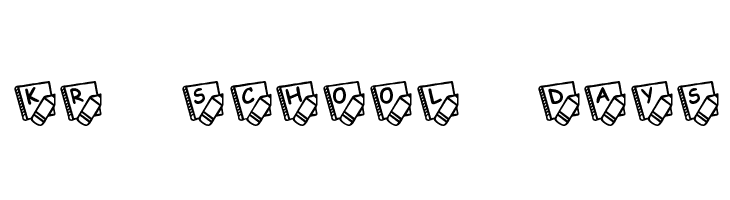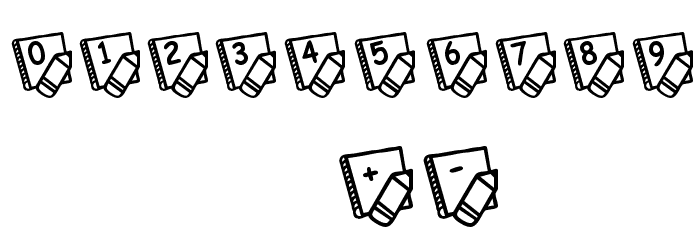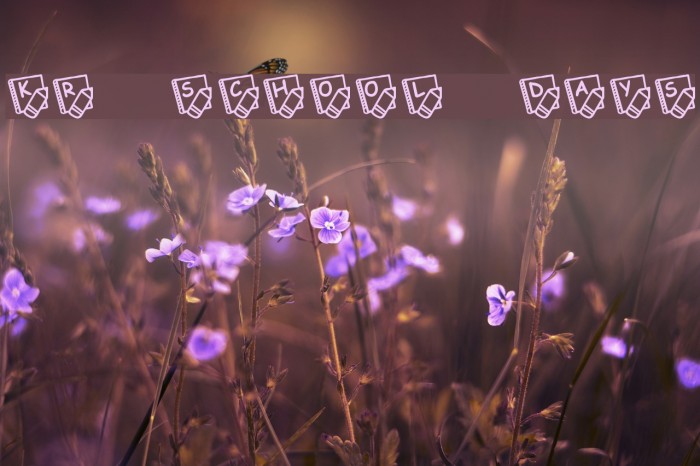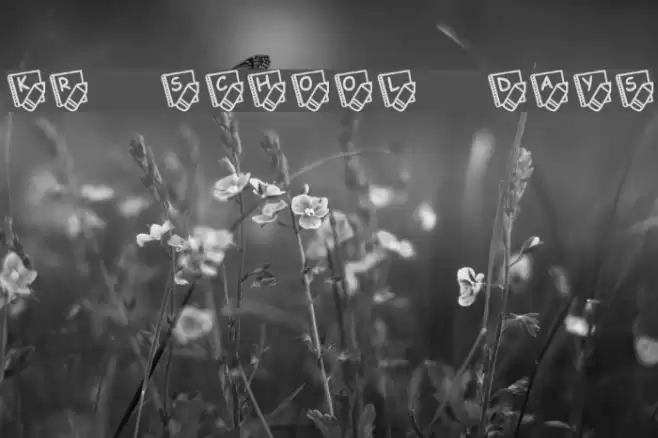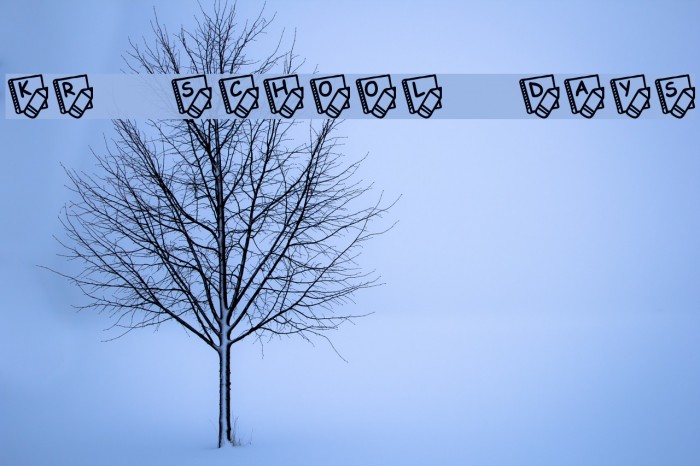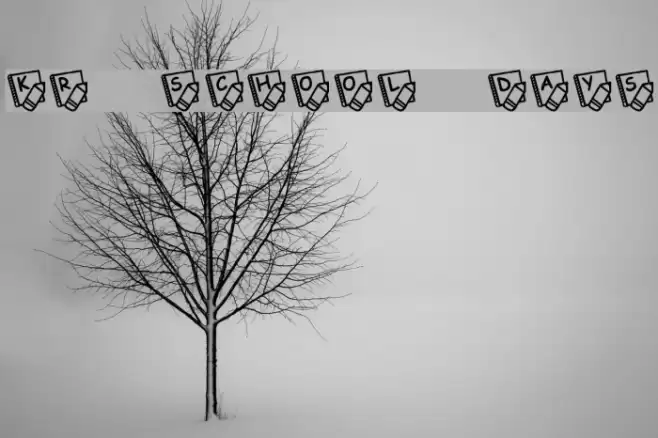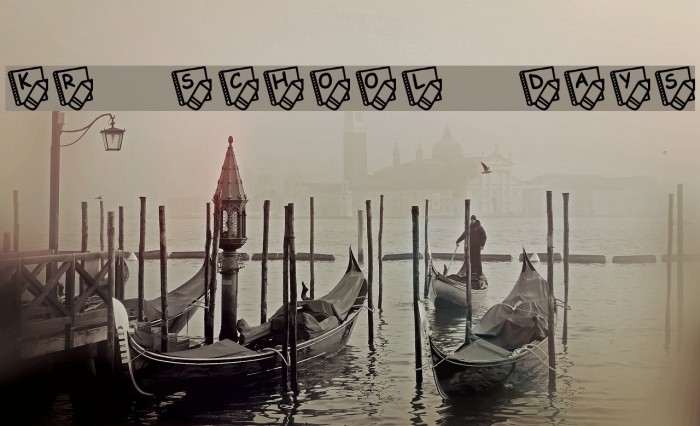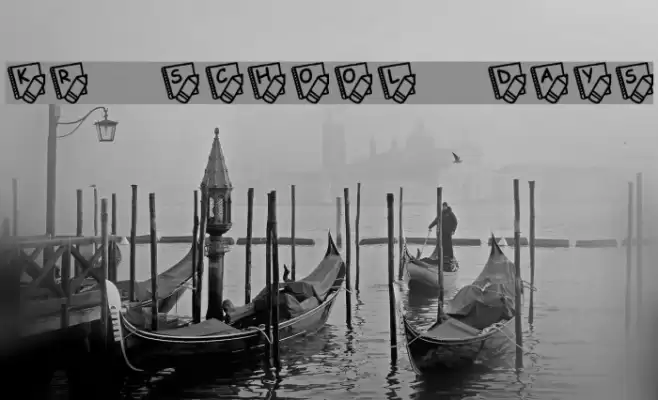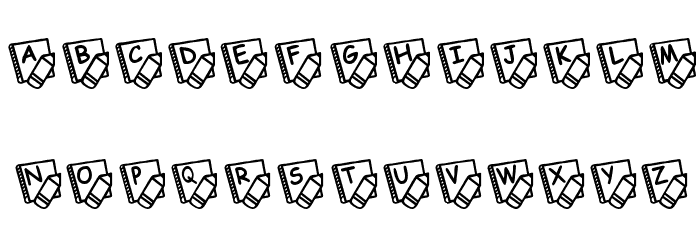
KR School Days Font
KR School Days Description
This playful and creative font features each character enclosed within a notebook-like design, complete with a pencil illustration. The letters and numbers are bold and outlined, giving them a distinct and eye-catching appearance. The style is reminiscent of school days, evoking a sense of nostalgia and fun. The characters are evenly spaced, ensuring readability while maintaining a decorative flair. This font is perfect for projects that aim to capture a youthful and educational theme, making it ideal for school-related materials, children's books, and playful branding.
| Overall Style | Playful, Educational |
| Use Case | Headlines, Logos, Educational Materials |
| Proposed Projects | Perfect for educational materials, children's books, school branding, and playful designs. |